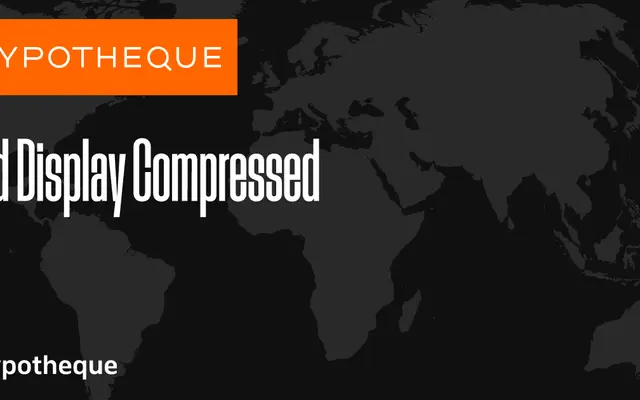
Zed Display Compressed
Typotheque
Zed Display Compressed specimen from Typotheque
One width in a sprawling geometric display system that spans nine widths, three slant variants and nine weights across Display, Round and Text subfamilies.
Zed Display Compressed sits within one of the more architecturally ambitious type systems Typotheque has produced, covering nine widths from Extra-Compressed to Extra-Wide across Display and Round variants, plus a dedicated Text subfamily. Each width offers nine weights from Hairline to Black, with upright, Slanted and Backslanted cuts throughout, and a variable font option. The compressed cut is suited to tall, narrow headlines and editorial work where extreme width contrast is needed across a layout.
Zed is a large display system with geometric construction across multiple widths and slant variants; the compressed width is clearly intended for headline and display use at narrow measures.